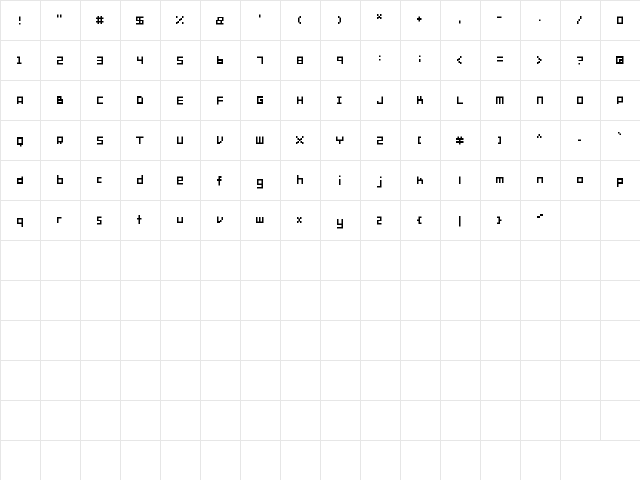
HM Fine Bit Regular
Design Context for HM Fine Bit Typeface
HM Fine Bit offers clean, dependable letterforms without strong stylistic allegiance, making it a practical choice for designers who need flexibility.